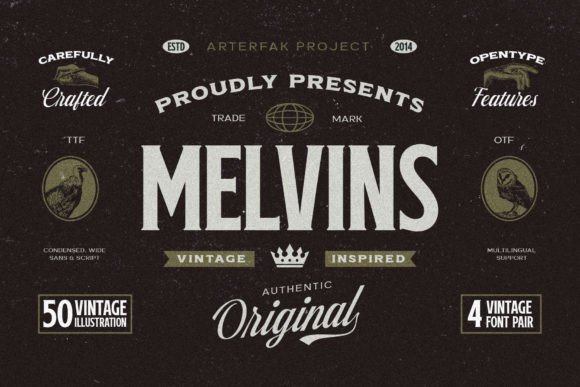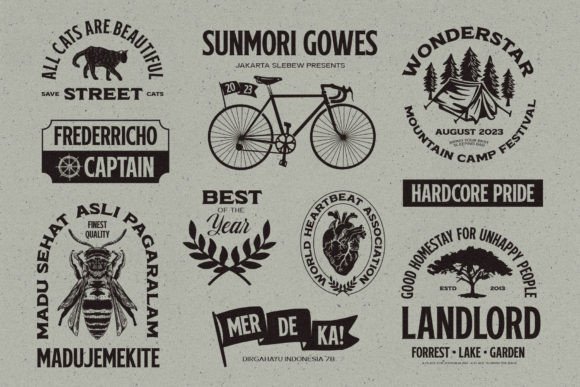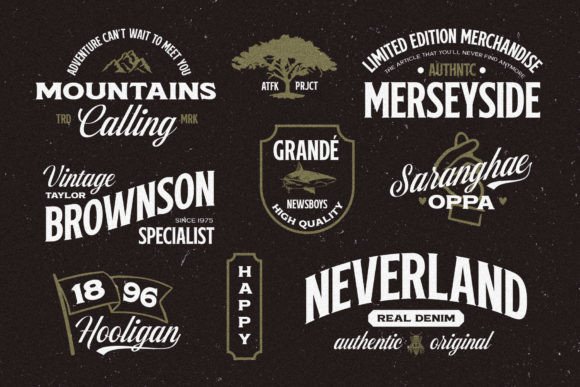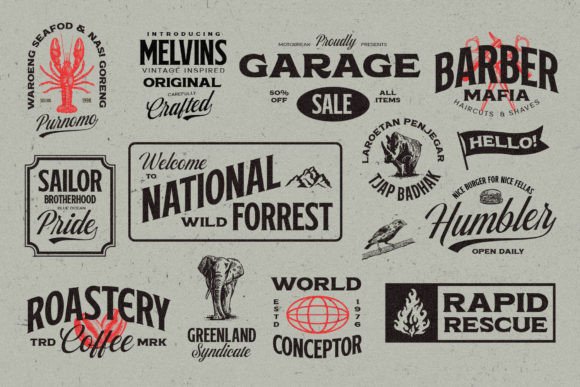
About the Melvins Font
Explore the possibilities with Melvins Font, a font that offers both beauty and functionality. Introducing Melvins – Font Set. The font combination which inspired by the vintage design. Includes 4 fonts with different styles that have unique looks, and are perfect pairs when combined.
This font set is carefully designed with high attention to give a feel of vintage, old-school, and classic. Melvins consist of condensed, light, expanded, & script styles that are versatile to be used for many design purposes.
Melvins Font Set including with 50+ vintage illustrations that will ease you to make a design in a sec and is also equipped with swash and alternate characters that you can mix and match to get a more vintage look. The perfect choice to be used to create logos, labels, badges, logotypes, decals, shirts, posters, flyers, etc.’